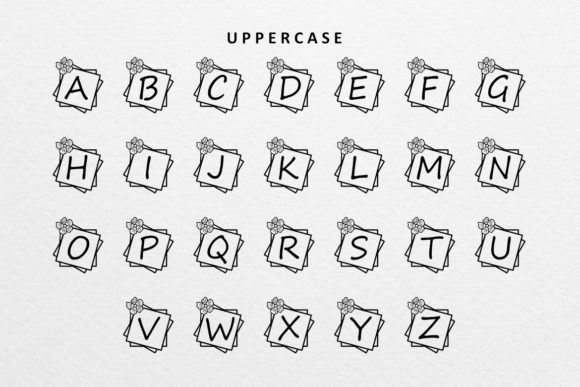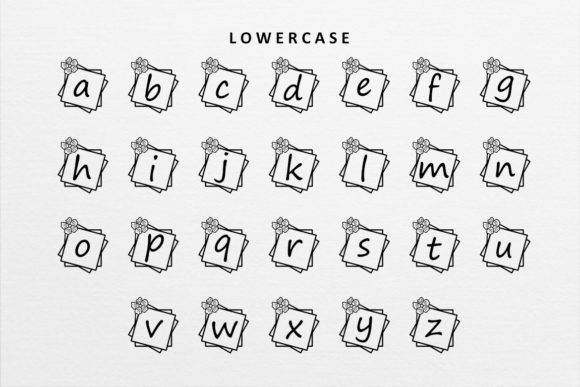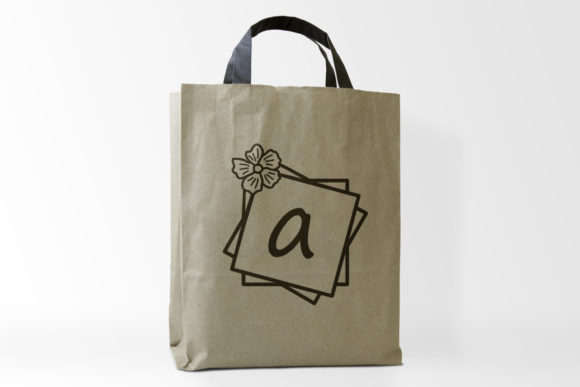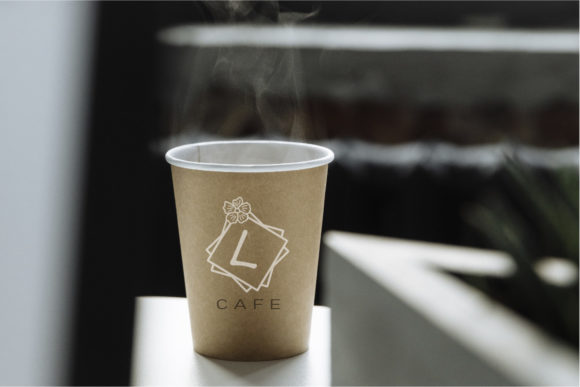
Ayu Monogram Font: Elevate Your Designs with a Fun and Versatile Decorative Font
Are you a designer or crafter looking for a font that can add a touch of personality and elegance to your creations? Look no further than Ayu Monogram Font, a fun and useful decorative font that is sure to become an incredible asset to your font library. With its unique and stylish design, Ayu Monogram Font has the potential to elevate any creation, regardless of the topic or theme.
What is Ayu Monogram Font?
Ayu Monogram Font is a decorative font designed to add a touch of sophistication and glamour to any design project. Its monogram style letters are carefully crafted to create a sense of luxury and refinement, making it perfect for a wide range of applications, from branding and advertising to crafting and DIY projects.
Key Features of Ayu Monogram Font
- Unique and Stylish Design: Ayu Monogram Font features a distinctive and stylish design that sets it apart from other fonts. Its monogram style letters are intricately designed to create a sense of elegance and sophistication.
- Versatile and Flexible: This font is incredibly versatile and can be used for a wide range of design projects, from logos and branding to invitations and crafts.
- High-Quality Design: The font is designed with high-quality and precision, ensuring that it looks great in any size or application.
How to Use Ayu Monogram Font
Ayu Monogram Font is incredibly easy to use and can be applied to a wide range of design projects. Here are a few ideas to get you started:
- Logos and Branding: Use Ayu Monogram Font to create stunning logos and branding materials that will help your business stand out.
- Invitations and Stationery: Add a touch of elegance and sophistication to your invitations and stationery with Ayu Monogram Font.
- Crafts and DIY Projects: Use Ayu Monogram Font to add a personal touch to your crafts and DIY projects, such as scrapbooking, card making, and more.
- Advertising and Marketing: Use Ayu Monogram Font to create eye-catching advertising and marketing materials that will grab attention and leave a lasting impression.
Benefits of Using Ayu Monogram Font
There are many benefits to using Ayu Monogram Font in your design projects. Here are a few:
- Increased Creativity: Ayu Monogram Font can help stimulate your creativity and inspire new ideas for your design projects.
- Professional-Looking Results: With Ayu Monogram Font, you can achieve professional-looking results that will impress your clients and audience.
- Unique and Customizable: Ayu Monogram Font offers a unique and customizable solution for your design projects, allowing you to stand out from the crowd.
In conclusion, Ayu Monogram Font is a fun and useful decorative font that is sure to become an incredible asset to your font library. With its unique and stylish design, versatility, and ease of use, Ayu Monogram Font has the potential to elevate any creation and add a touch of elegance and sophistication to your design projects. Whether you’re a designer, crafter, or DIY enthusiast, Ayu Monogram Font is a must-have font that will help you achieve professional-looking results and stand out from the crowd.